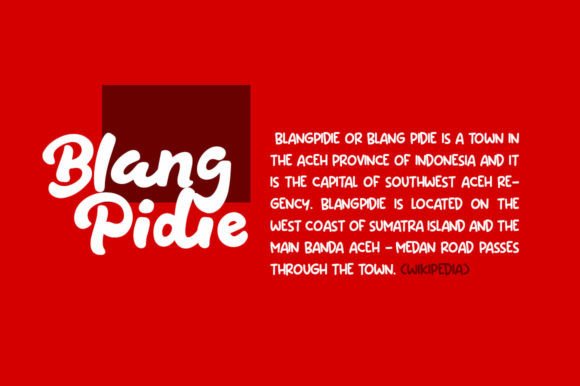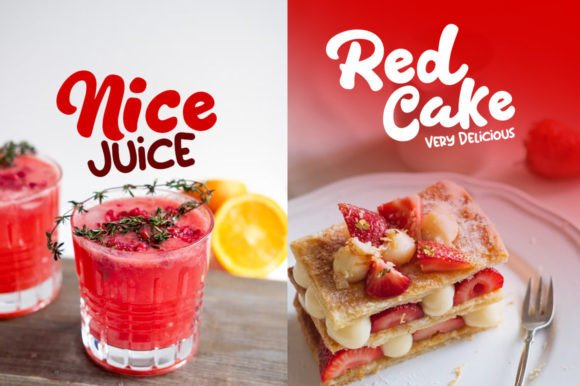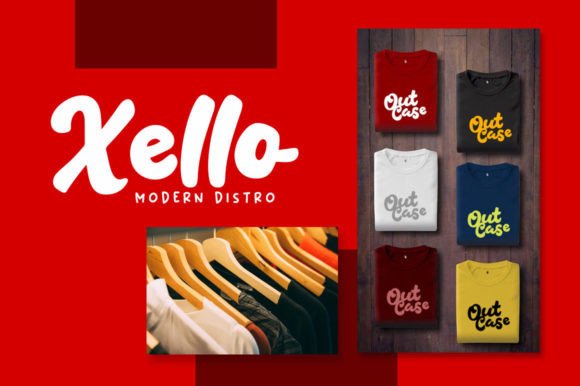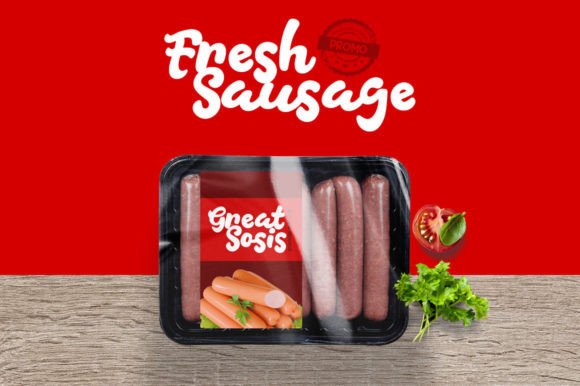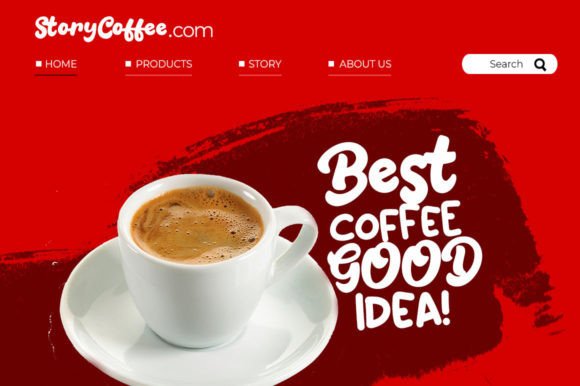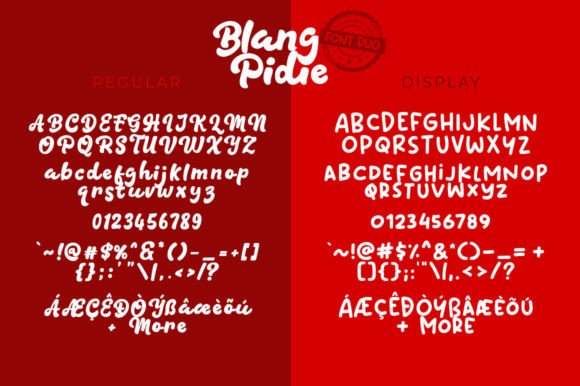
Introducing Blang Pidie Duo Font: Elevate Your Designs with a Fun Handwritten Style
Are you on the hunt for a unique and playful font to take your designs to the next level? Look no further than the Blang Pidie Duo Font! This fantastic font duo, consisting of a script and display style, is perfect for creating eye-catching posters, logos, magazines, book covers, banners, and so much more. In this article, we’ll dive into the world of Blang Pidie and explore how this amazing typeface can help you unleash your creativity and produce stunning designs.
What is Blang Pidie Duo Font?
Blang Pidie Duo Font is a carefully crafted handwritten font duo that combines a beautiful script style with a bold display style. This versatile typeface is designed to add a touch of personality and whimsy to any design project. Whether you’re a designer, craftsperson, or DIY enthusiast, Blang Pidie is the perfect choice for those looking to add a dash of fun and flair to their work.
Key Features of Blang Pidie Duo Font
- Script and Display Styles: The Blang Pidie Duo Font comes with two distinct styles: a lovely script font perfect for body text and a bold display font ideal for headings and titles.
- Handwritten Charm: The font’s handwritten nature gives it a unique, personal touch that’s sure to capture the attention of your audience.
- Highly Versatile: Blang Pidie can be used for a wide range of design projects, from posters and logos to magazines, book covers, and banners.
Blang Pidie Duo Font is an excellent choice for designers and crafters looking to add a personal touch to their work. Whether you’re creating:
- Posters and Flyers: Grab attention with bold, eye-catching titles and engaging body text.
- Logos and Branding: Establish a unique identity with a memorable and playful font.
- Magazines and Newsletters: Add a touch of personality to your publications with a beautiful script font.
- Book Covers and Titles: Create a lasting impression with a bold, attention-grabbing display font.
- Banners and Signs: Make a statement with a fun, handwritten font that’s sure to stand out.
Why Choose Blang Pidie Duo Font?
With so many fonts available, why choose Blang Pidie? Here are just a few reasons:
- Unique and Playful: Blang Pidie adds a touch of whimsy and personality to any design.
- Highly Versatile: Use it for a wide range of projects, from digital designs to print materials.
In conclusion, the Blang Pidie Duo Font is an exceptional choice for designers and crafters looking to elevate their designs with a fun, handwritten style. With its script and display styles, highly versatile nature, and ease of use, this font duo is perfect for a wide range of projects. Don’t miss out on the opportunity to take your designs to the next level with Blang Pidie. Get your copy today and start creating stunning designs that capture the attention of your audience!